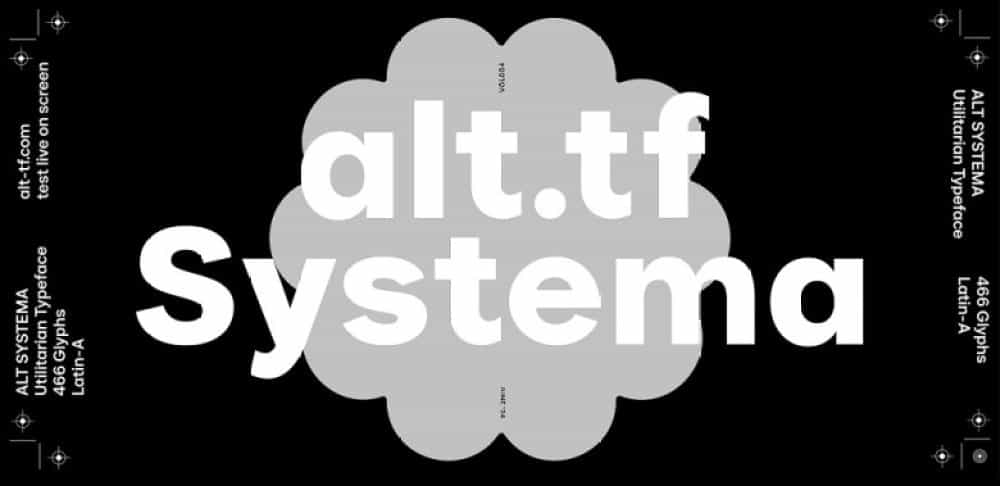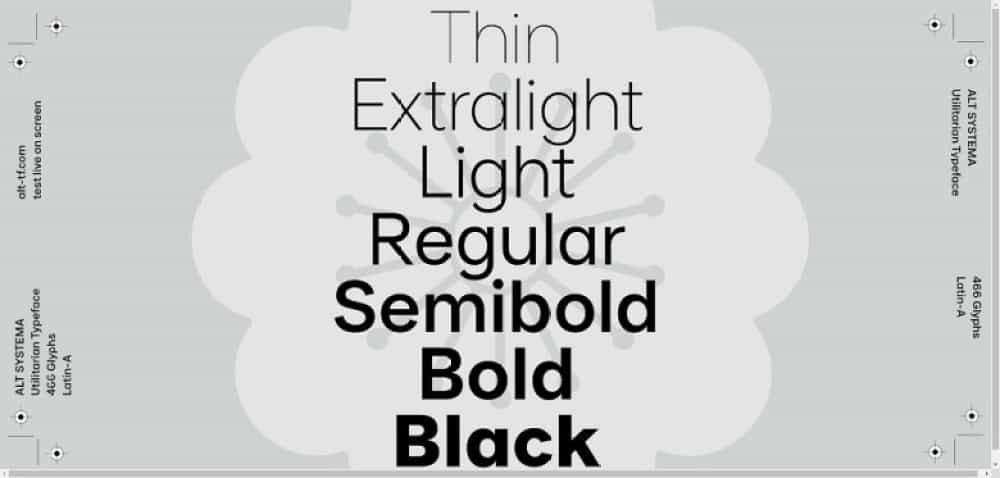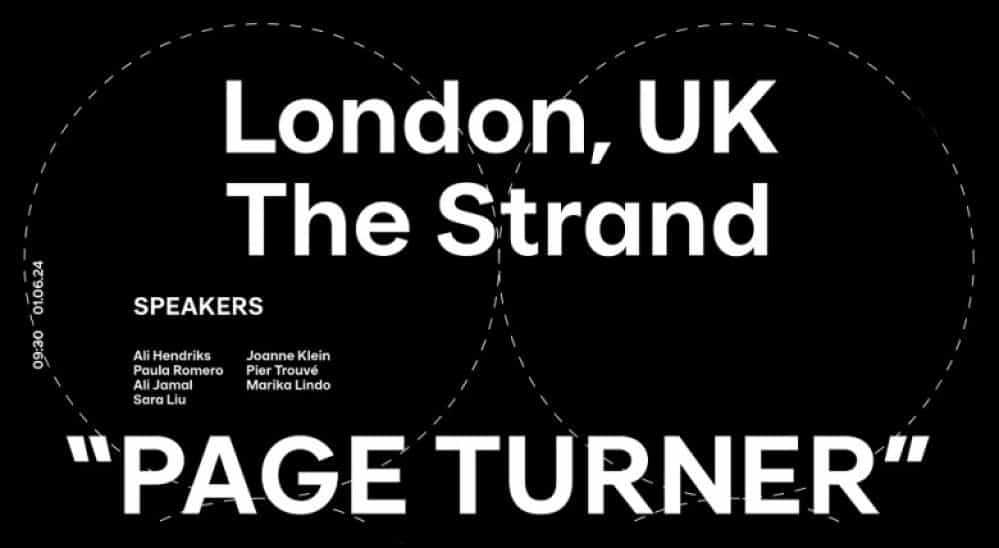
ALT Systema is a geometric sans-serif typeface family that has been constructed by Giulia Boggio to give a modern professional look. It brings cleanliness and professionalism in the design, along with providing aesthetics across print and electronic media; thus, making it the best choice for designers who are in need for a font which is both flexible and stylish.